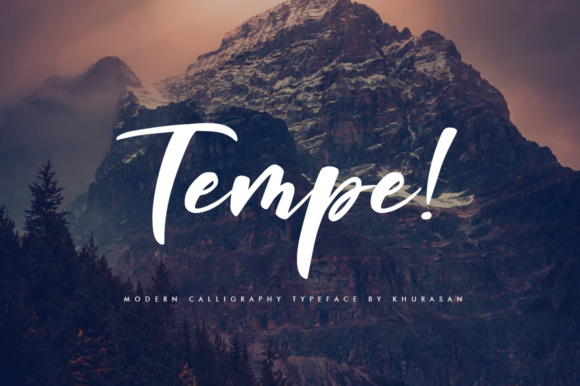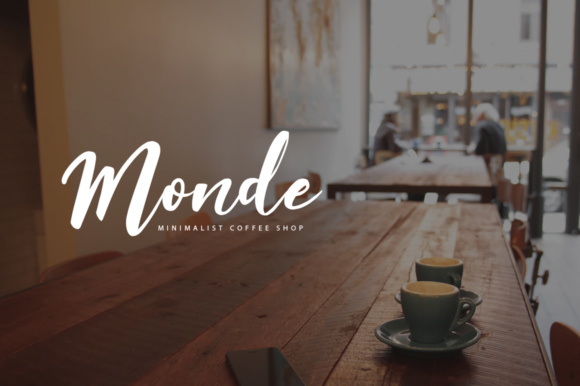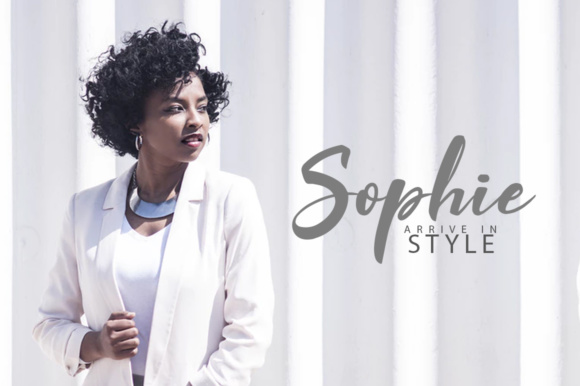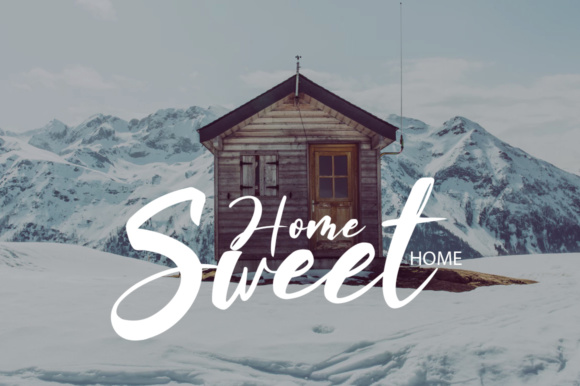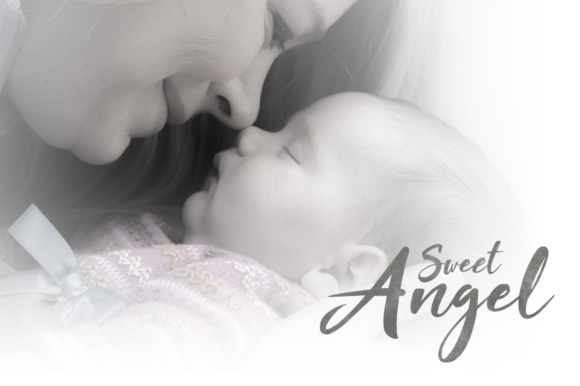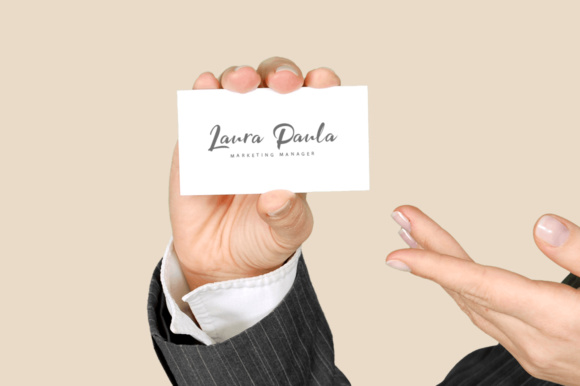
Tempe! Script Font
About Tempe! Script Font
Tempe! Script Font is a fun bold script font, fresh & modern style . Tempe! Script Font suitable for logo, branding, greeting card, poster and any design that you create.